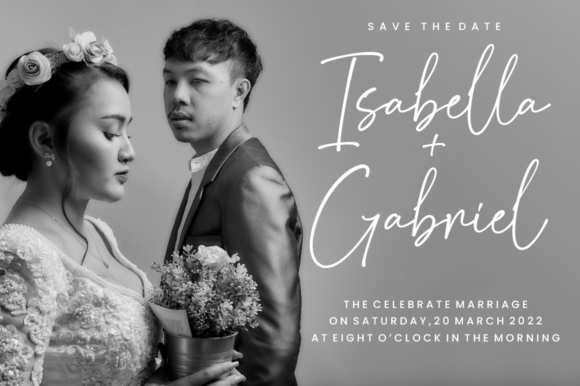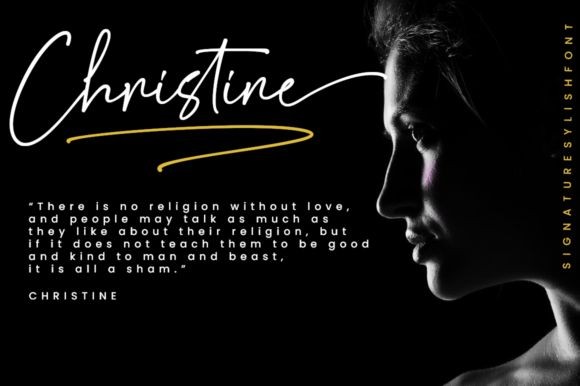
Angelia Devitson Font
db-ku.com - Script & Handwritten -- Aangelia Devitson is a beautiful and refined script font. It has a classy, elegant and modern look that can be used for logos, branding, invitations, stationery, wedding designs, social media posts, and much more! This font is PUA encoded which means you can access all of the glyphs and swashes with ease!